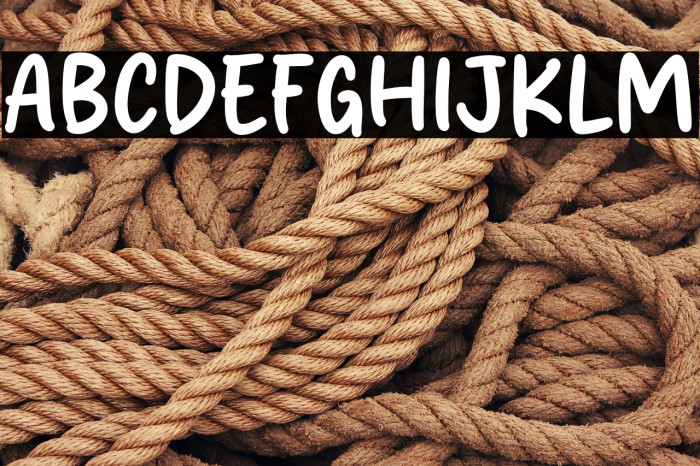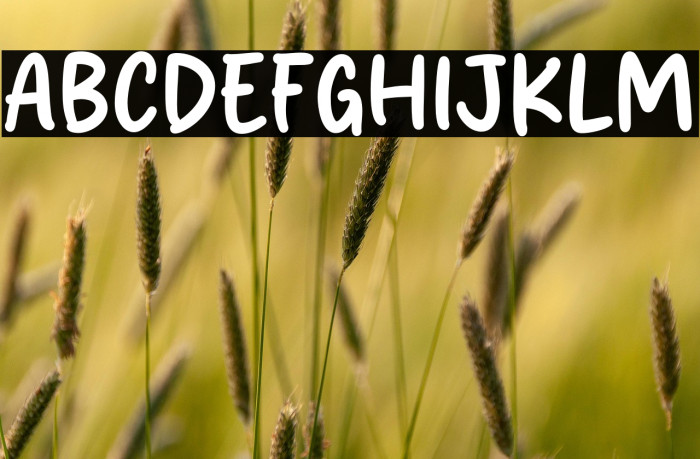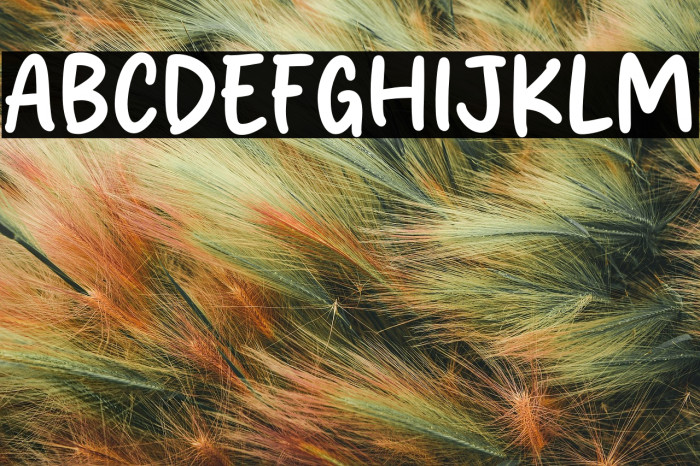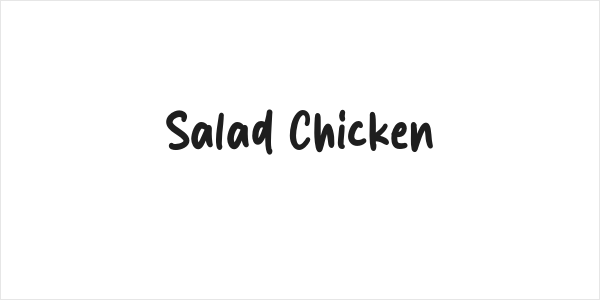
Salad Chicken Font
Salad Chicken Description
A playful, rounded handwritten typeface with bold, consistent strokes and a casual, friendly appearance. The characters are slightly irregular, mimicking natural handwriting, and the overall look is approachable and informal.
| Overall Style | Playful, Casual, Friendly |
| Use Case | Headlines, Posters, Informal Branding, Social Media |
| Proposed Projects | ChildrenΓ’β¬β’s books, greeting cards, posters, casual branding, social media graphics. |